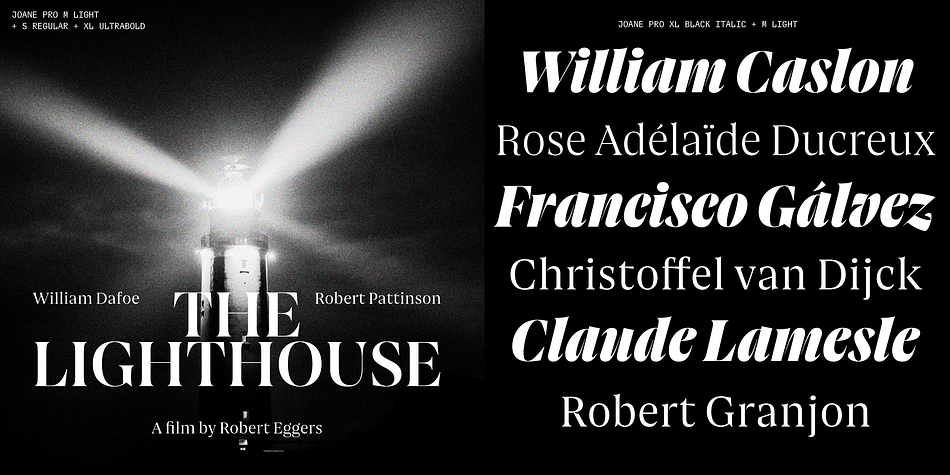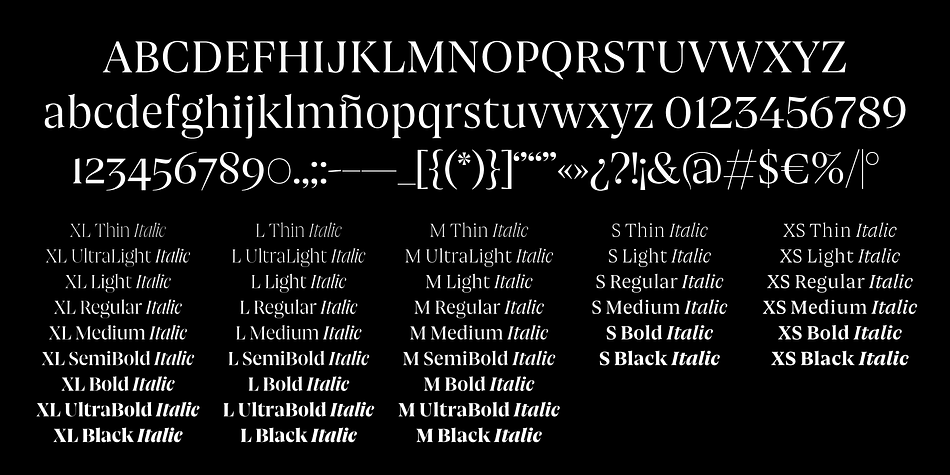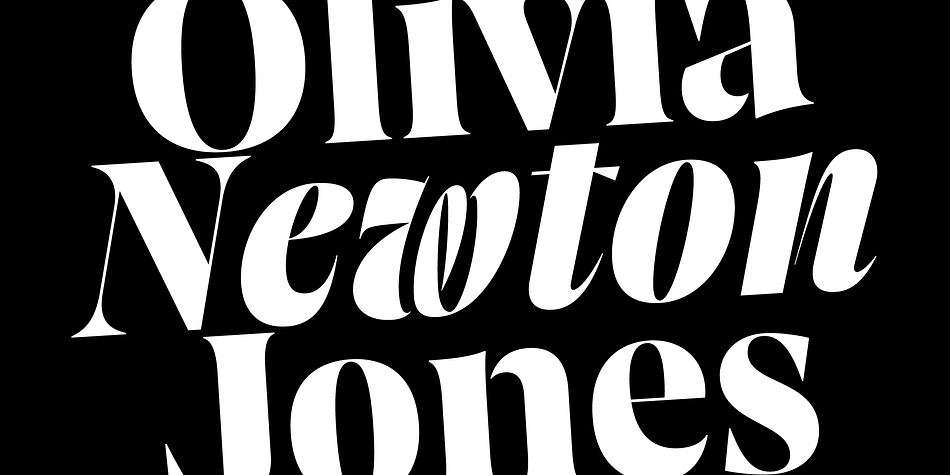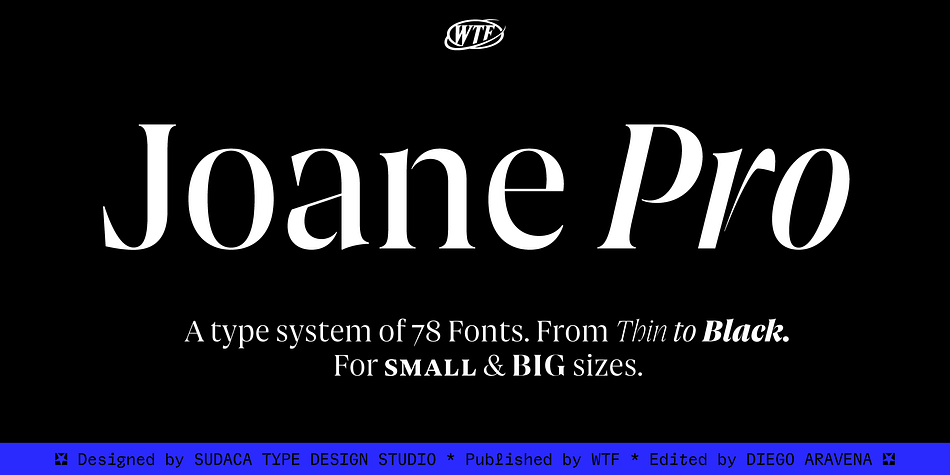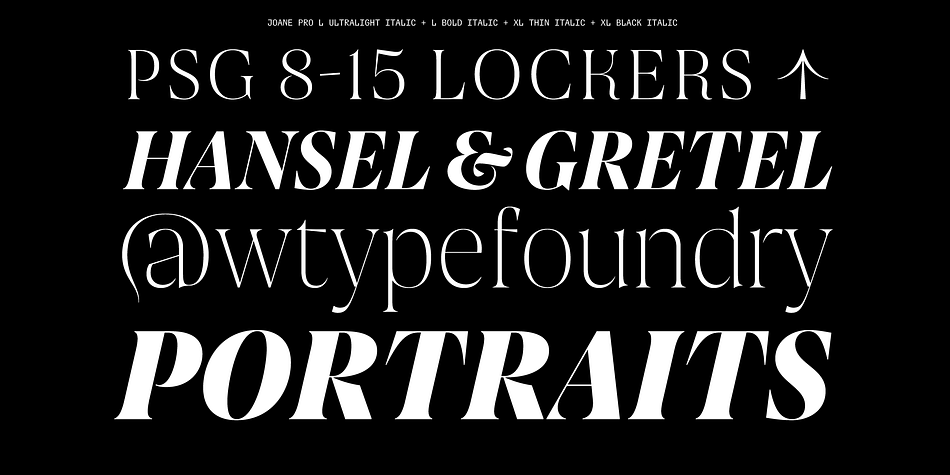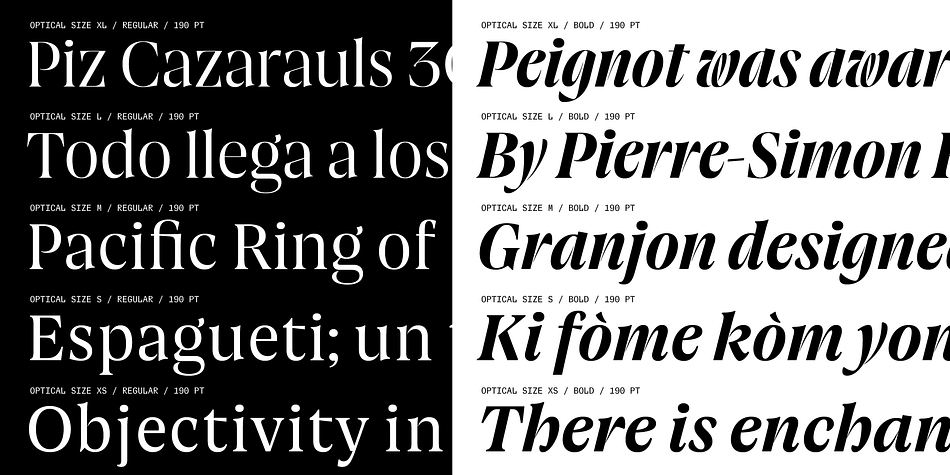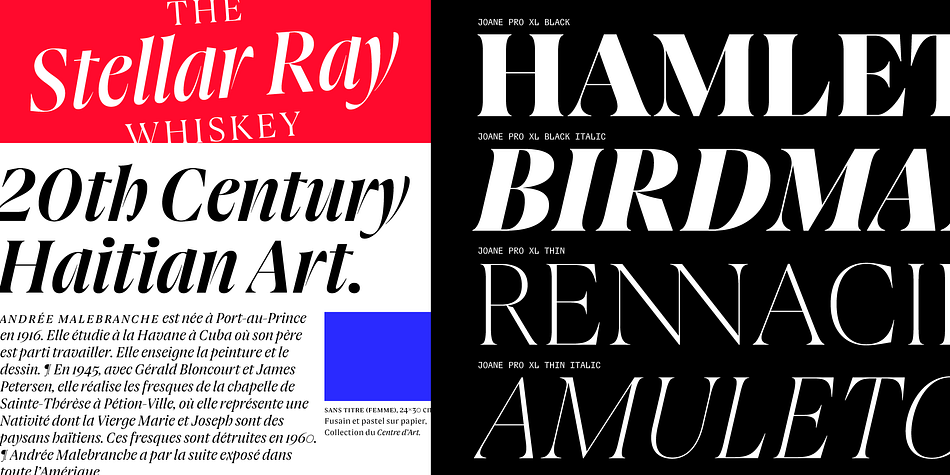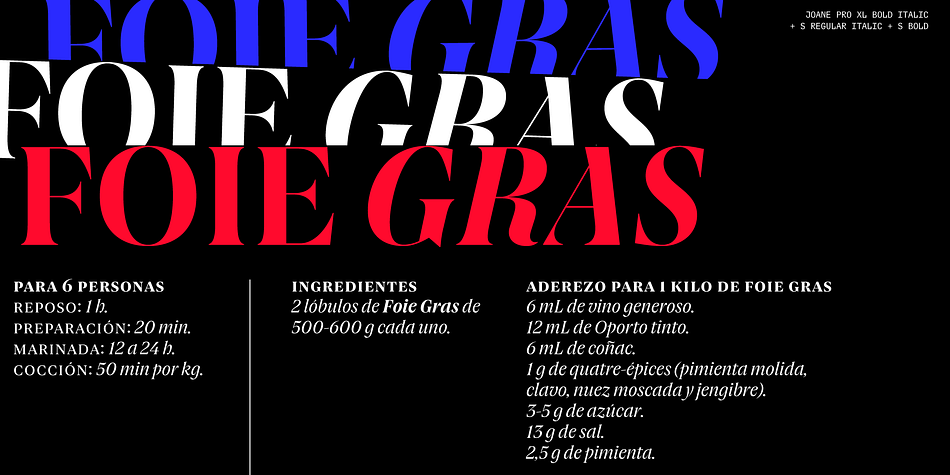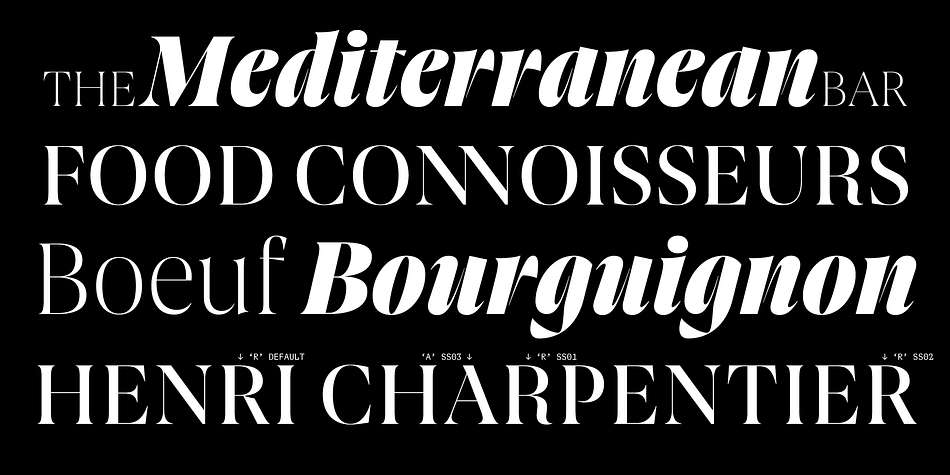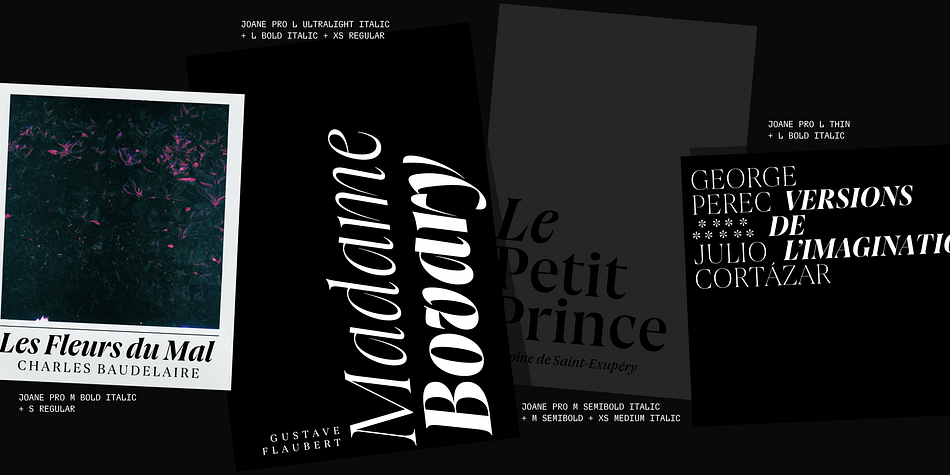
Joane PRO
Designed by Ale Navarro, Joane PRO is a display serif and serif font family. This typeface has seventy-eight styles and was published by W Type Foundry.
Joane Pro is a new typeface based on Joane (2018). This project has its roots in French typography from the 16th century, Dutch models from the 17th century, and English typography from the 18th century. The result is a high-contrast typeface with sharp features which provides an organic texture. Joane Pro is a contemporary typeface with 79 styles that work in display and small sizes.